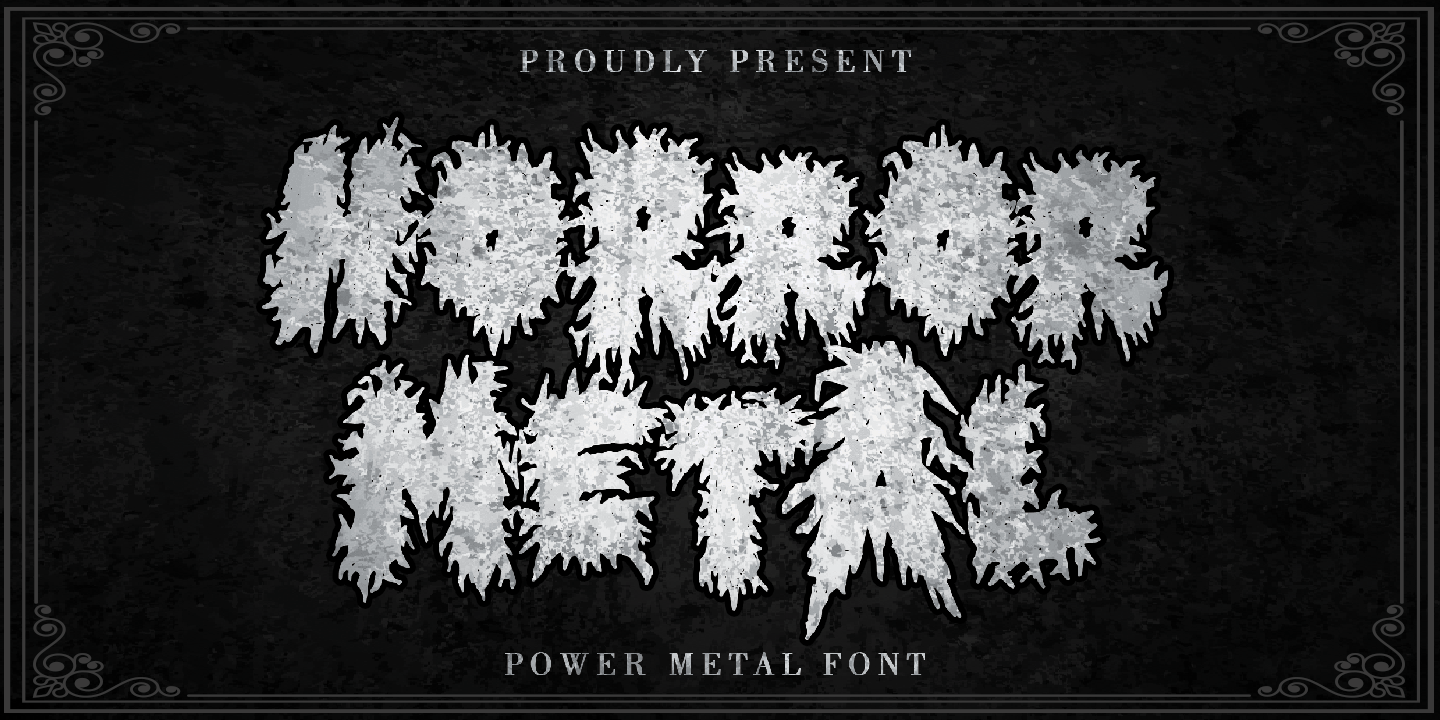
Horror Metal Font is perfect for metal band logos, horror movie titles, extreme music album covers, dark themed posters, gothic event promotions, Halloween marketing campaigns, extreme sports branding, heavy metal merchandise, underground music venues, and spine-chilling entertainment applications. This brutally intense display typeface brings metallic aggression and horror atmosphere to extreme design applications.
What makes Horror Metal Font so exciting is its extraordinary ability to channel the raw power and dark intensity of extreme metal music through letterforms that seem forged in the fires of hell and sharpened on the edge of darkness itself. The font features aggressively styled characters with jagged edges and menacing proportions that embody the brutal force and uncompromising intensity that define extreme metal culture and horror entertainment. Its distinctive characteristics include razor-sharp serifs, aggressive stroke patterns, and menacing spacing that mirror the crushing power and dark atmosphere that characterize the most extreme expressions of metal music and horror aesthetics. The font's authentic connection to underground culture and proven appeal among extreme music enthusiasts make Horror Metal Font perfect for brands seeking to communicate intensity, rebellion, and the uncompromising darkness that defines authentic extreme metal and horror entertainment experiences.
The Horror Metal Font family includes multiple brutal variations: Regular, Bold, Extra Heavy, and Distressed versions with extreme character sets. The comprehensive character collection encompasses complete Latin alphabet support with metal-inspired alternates, brutal numerals, aggressive punctuation marks, dark symbols, and menacing decorative elements that enhance extreme messaging. Professional features include contextual alternates that maximize brutal impact, aggressive spacing that creates crushing rhythm, metallic character construction that ensures maximum visual intensity, and horror details that add authentic darkness without compromising readability across different extreme applications and underground promotional materials.
Whether you're creating metal band materials, horror entertainment promotions, or extreme communications that embrace the darkest edges of creative expression, Horror Metal Font Free Download provides the brutally intense typography that transforms ordinary text into weapons of mass communication that command respect and fear. Its exceptional dark character makes it perfect for metal bands, horror entertainment companies, and extreme brands where authentic underground credibility and shocking visual impact are essential for connection with extreme audiences, while its aggressive construction ensures professional presentation that maintains reliability alongside maximum brutal appeal. The font's combination of metal authenticity and horror atmosphere makes it invaluable for designers working with extreme music brands, horror entertainment, and any project seeking to communicate the crushing power, dark rebellion, and uncompromising intensity that defines the most extreme expressions of metal culture and horror entertainment in today's underground scene.